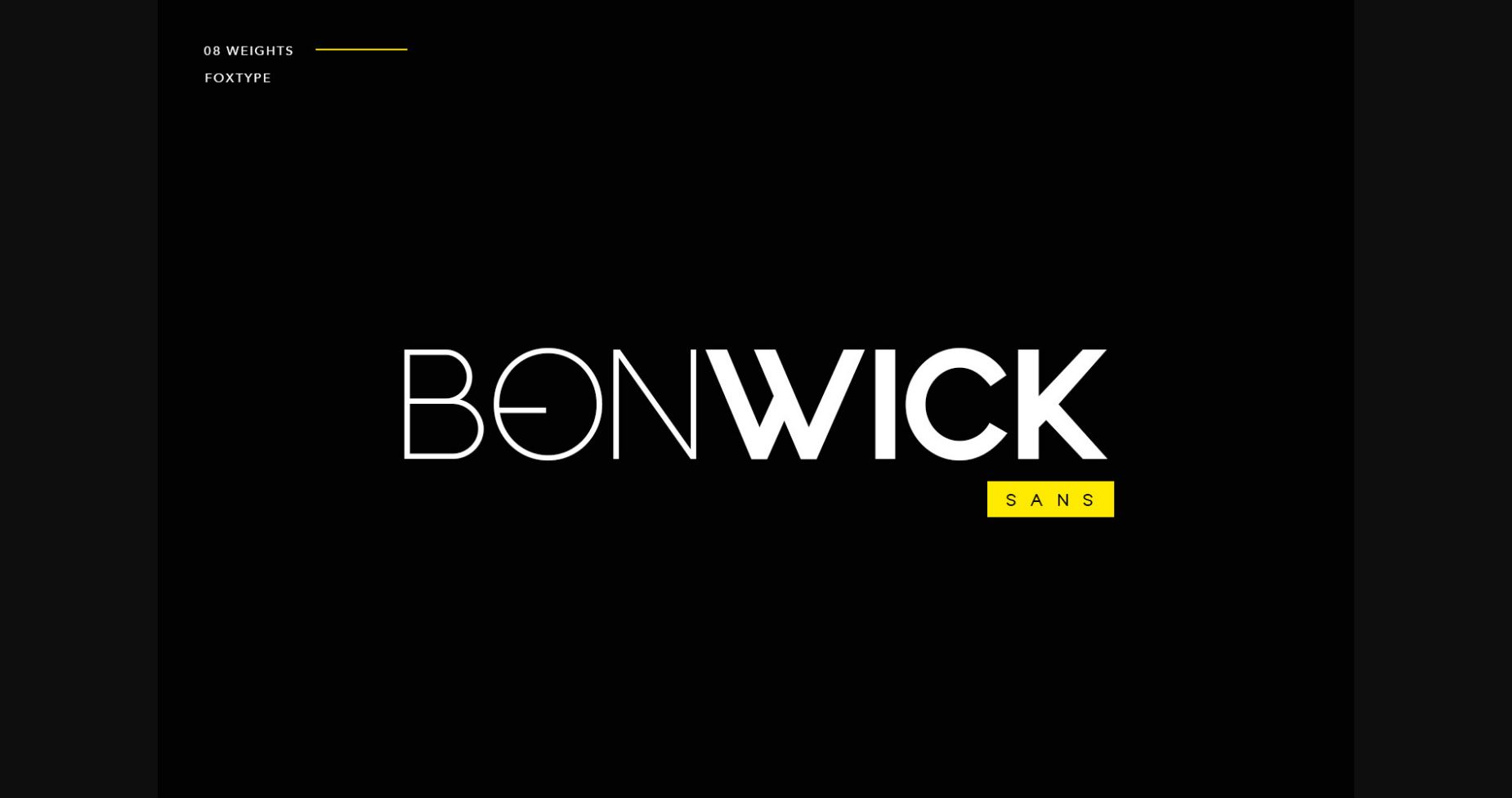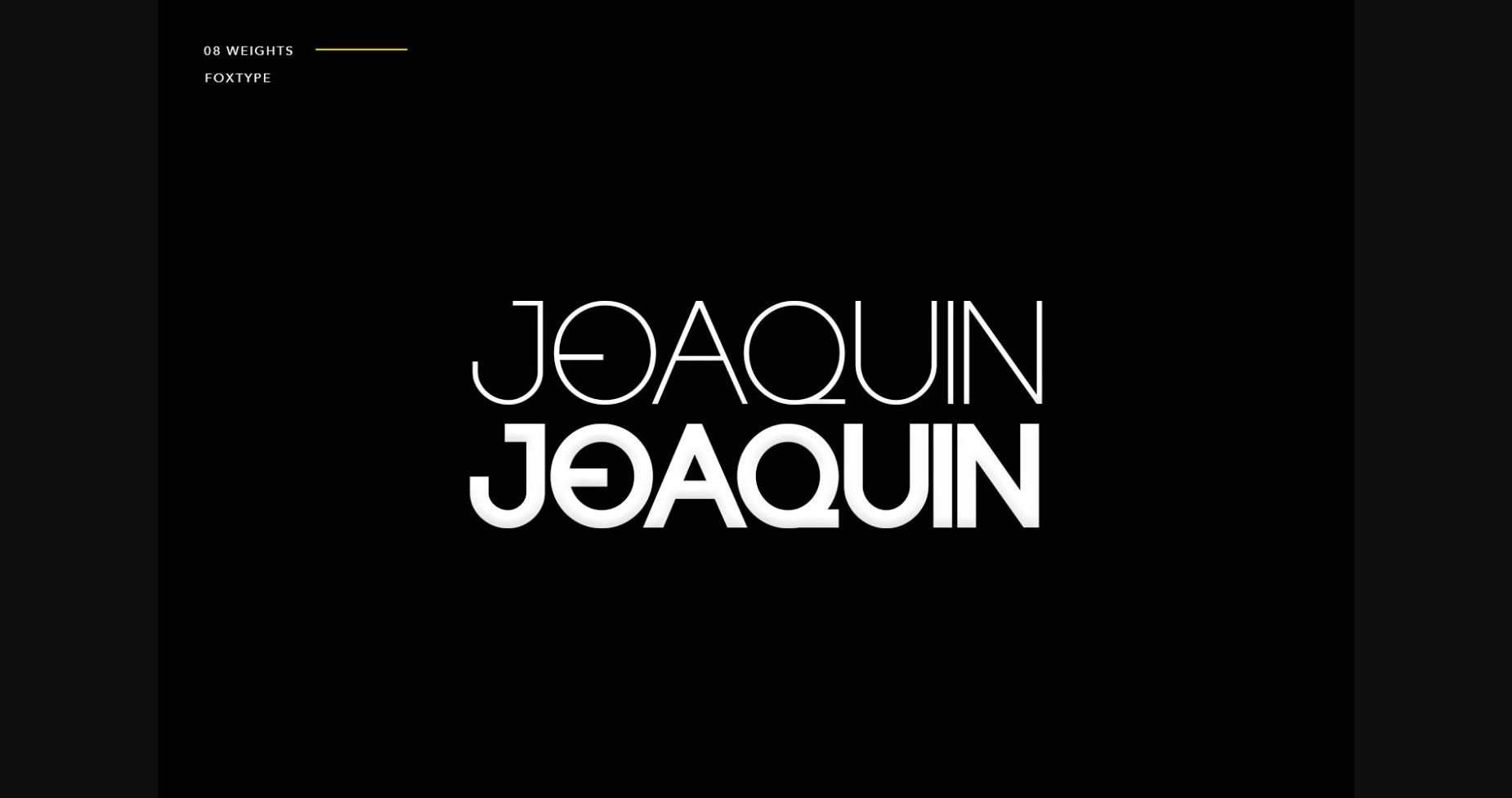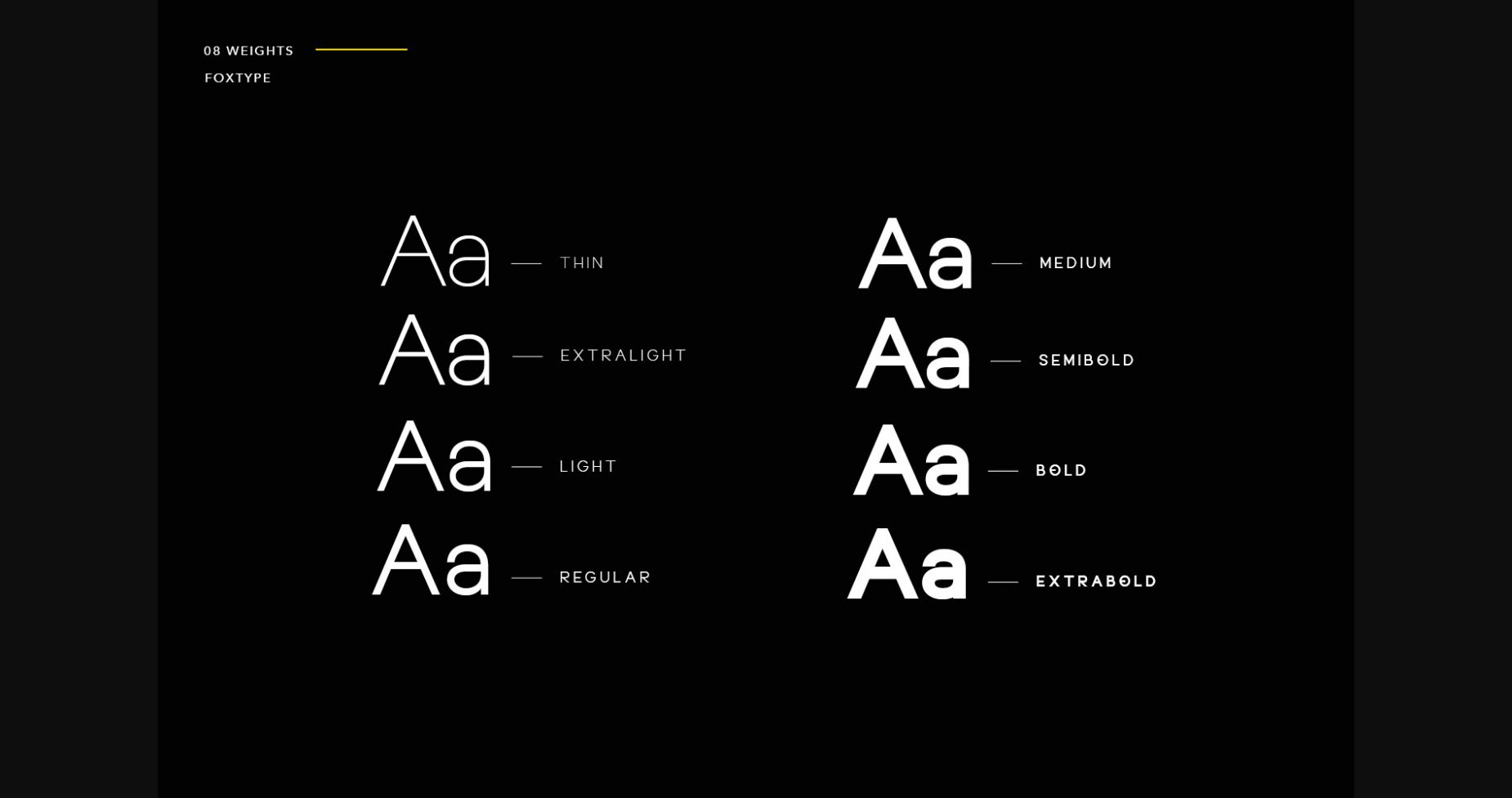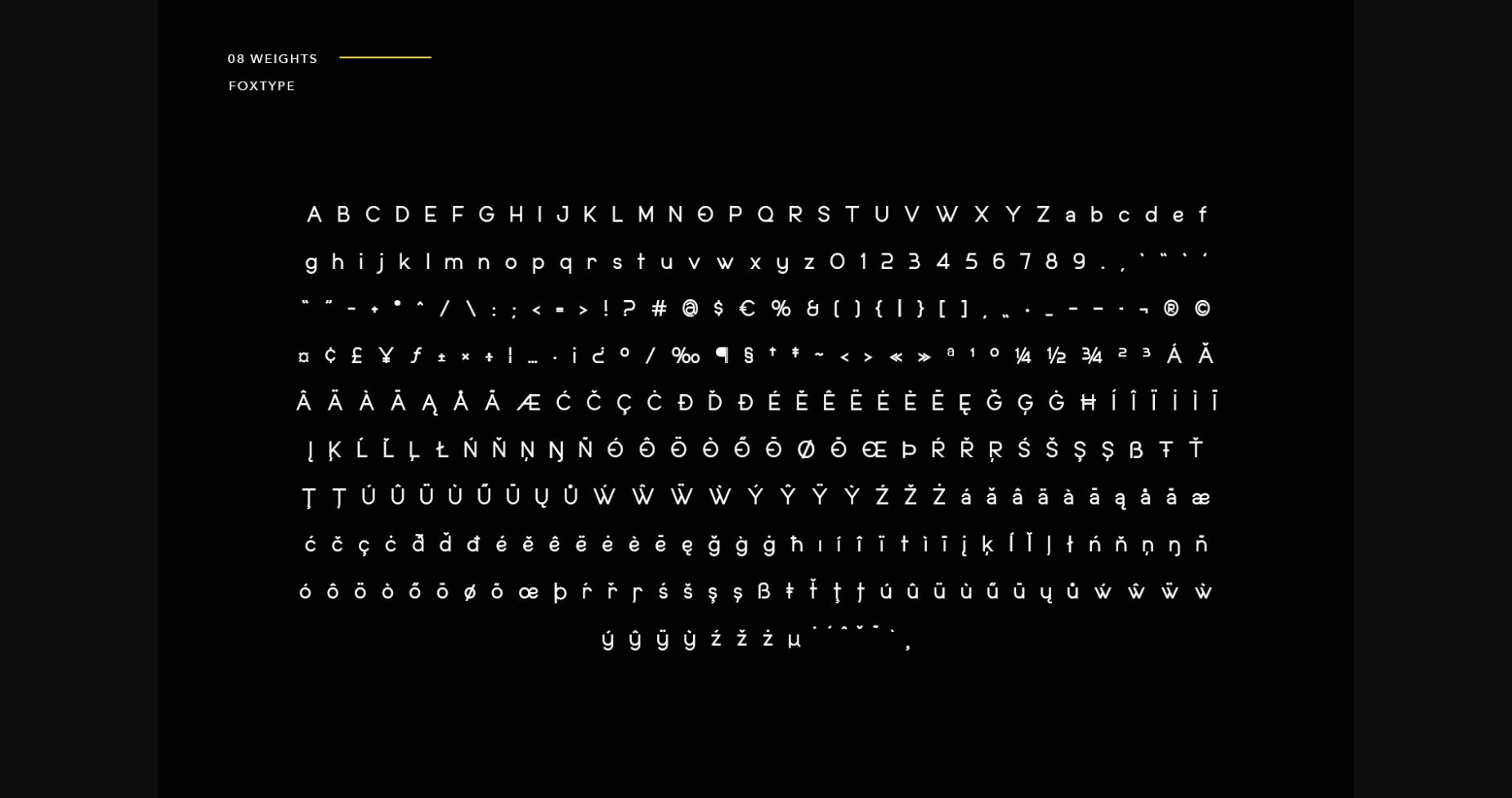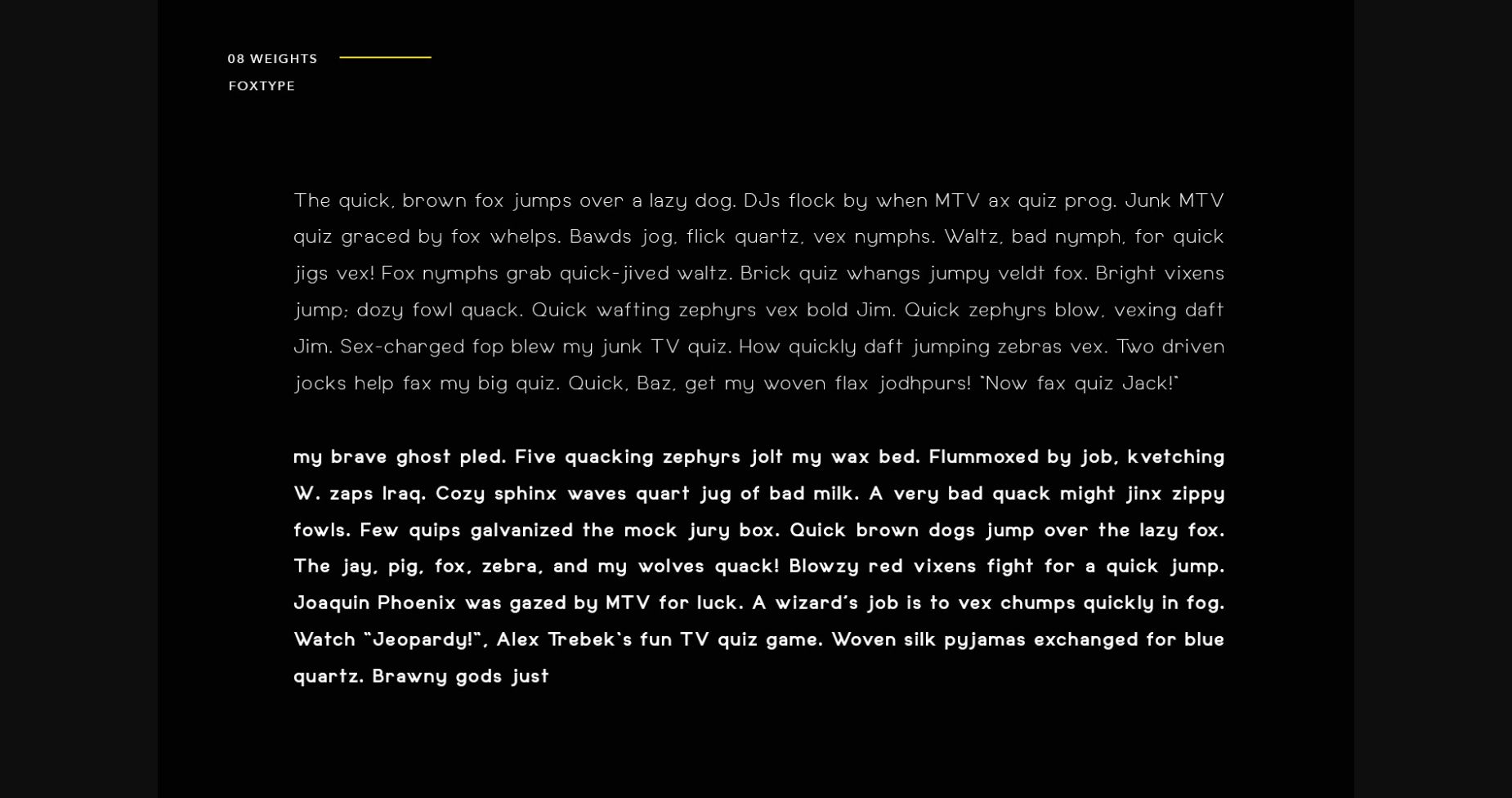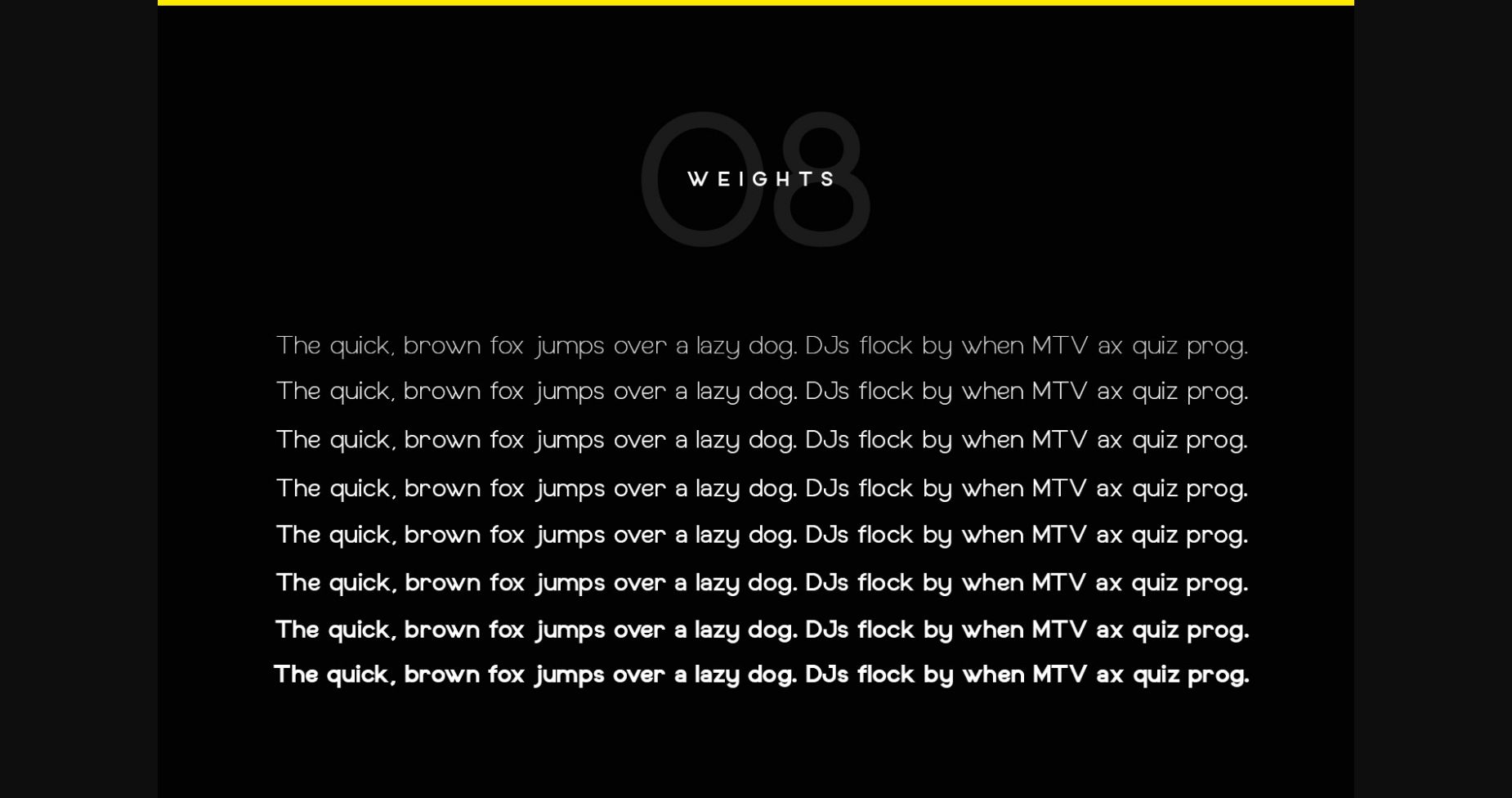
About Bonwick Font
Bonwick is a unique and modern sans serif font with an exquisite, solemn vibe. It’s a versatile font that works great in large and small sizes. Bonwick Font would be perfect for branding, logos, headlines, captions, or simply as stylish text to overlay any background image. Strong capitals and smooth open lowercase are effective in a variety of applications. It’s shown as clean, minimalist, warm, quirky, yet still purposed to be versatile and easy to read.